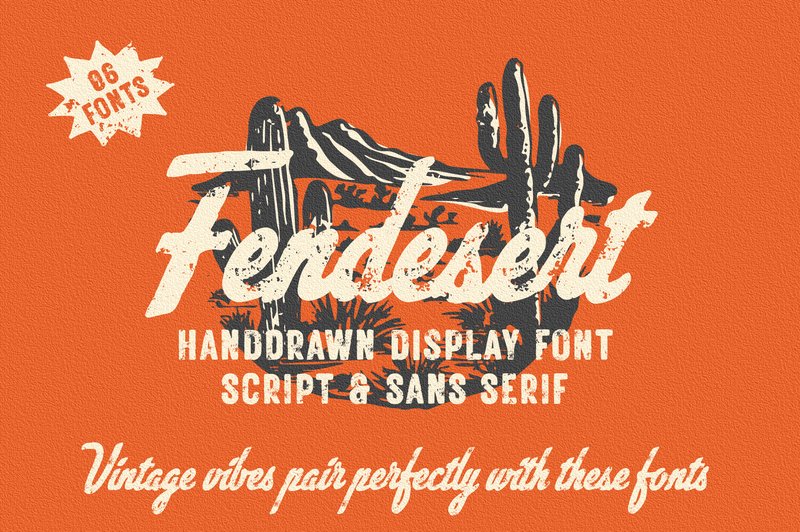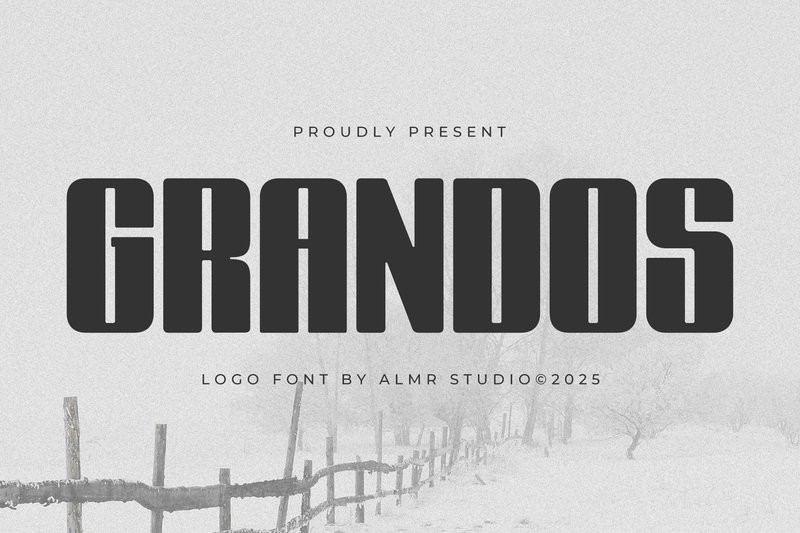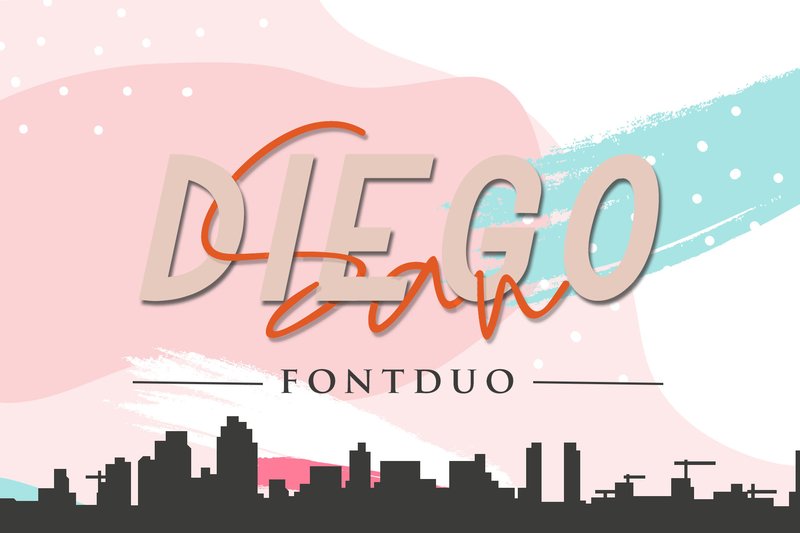
Top Sans Serif Fonts for Logo Design (2026 Edition)
1. Fendesert (by Edignwn Type)
Fendesert (by Edignwn Type) is a beautifully crafted font duo that delivers a dose of authentic vintage character directly into your toolkit. Seamlessly pairing a rugged sans serif with a free-flowing script, this collection moves beyond a simple typeface to offer a complete branding system. Its meticulously designed regular, rough, and stamp variations provide a tangible, handcrafted feel, making it an ideal choice for projects that need a timeless yet earthy personality.
- Versatile font duo featuring a complementary script and sans serif.
- Includes three distinct styles: Regular, Rough, and Stamp for varied texture.
- Comes bundled with 20 hand-drawn, Western-themed illustrations to enhance your designs.
- Creating distinctive logos and brand identities for artisanal goods or outdoor brands.
- Designing apparel, packaging, and merchandise with a rustic, handcrafted vibe.
- Crafting authentic-looking posters and labels for cafes, distilleries, or barbershops.
2. Grandos (by Almeera Studio)
Grandos (by Almeera Studio) is a masterclass in modern minimalism, offering a sans serif typeface that feels both impeccably clean and effortlessly approachable. Its well-balanced letterforms and geometric precision create a sense of stability and confidence, making it an ideal choice for brands that want to convey trust and sophistication. While rooted in a contemporary aesthetic, Grandos possesses a timeless quality that ensures its relevance across countless applications, providing a solid, stylish foundation that never overpowers the message.
- Clean, geometric construction for a sharp and modern look
- Excellent readability in both digital and print formats
- A versatile character set suitable for display and text
- A professional and understated aesthetic
- Corporate branding and sophisticated logo designs
- Sleek product packaging and labels
- High-end advertisements and social media campaigns
- Elegant wedding invitations and stationery
3. San Diego Duo (by Sharon ( DmStudio ))
San Diego Duo (by Sharon ( DmStudio )) evokes the effortless cool of a sun-drenched coastal city, blending modern minimalism with a personal, handwritten touch. This pairing doesn’t just present text; it communicates a lifestyle—one that is both approachable and impeccably stylish. The clean, geometric lines of the sans serif provide a stable, contemporary foundation, while the flowing, organic signature script injects personality and warmth, creating a harmonious balance perfect for brands that want to feel both professional and human.
- A cohesive font duo featuring a clean sans serif and a signature script.
- The script font offers an authentic, free-flowing feel for a personal touch.
- A modern sans serif provides a stable, highly readable foundation.
- Optimized for creating a dynamic and stylish typographic hierarchy.
- Sophisticated branding and logo systems for lifestyle, beauty, or creative brands.
- Creating eye-catching social media graphics and engaging blog headers.
- Elegant print materials such as posters, invitations, and business cards.
- Website headers and other key messaging that requires a personal yet polished look.
4. Magnolia Cora (by getstudio)
Magnolia Cora (by getstudio) delivers a powerful yet approachable aesthetic, bridging the gap between casual handwriting and bold brand statements. Crafted with authentic brush textures, each character feels custom-made, lending a personal, artisanal touch to any project. Its confident strokes and organic form make it a standout choice for designers seeking a font with both personality and polish, especially when paired with a clean sans-serif for a truly modern and dynamic contrast.
- Authentic brush-stroke textures that provide a raw, organic feel.
- A casual yet strong character set that balances approachability with impact.
- A highly legible handwritten style suitable for a variety of design scales.
- Lifestyle branding and logos requiring a personal, artisanal touch.
- Social media graphics and promotional materials that need to stand out.
- Custom apparel, packaging, and high-impact poster designs.
5. San De More (by kereatype)
San De More (by kereatype) is a testament to the studio’s mastery of sophisticated typography. Kereatype delivers a stunningly modern serif family that blends timeless elegance with a contemporary, fashionable edge. Its sharp, clean lines and subtle curves create a rhythm that feels both luxurious and approachable. This font isn’t just a set of characters; it’s a complete toolkit for building a chic and memorable brand identity, complete with stylish extras that add a touch of confident flair.